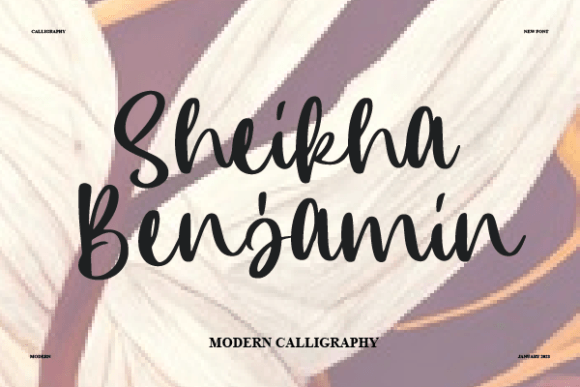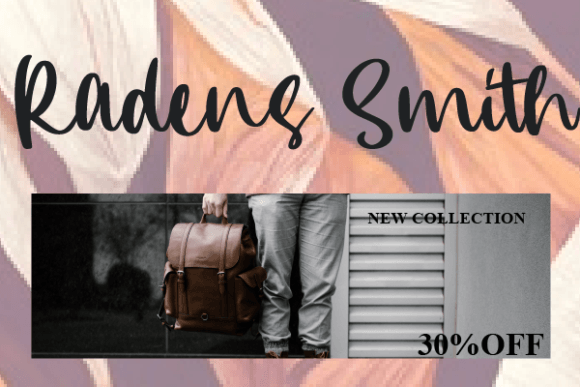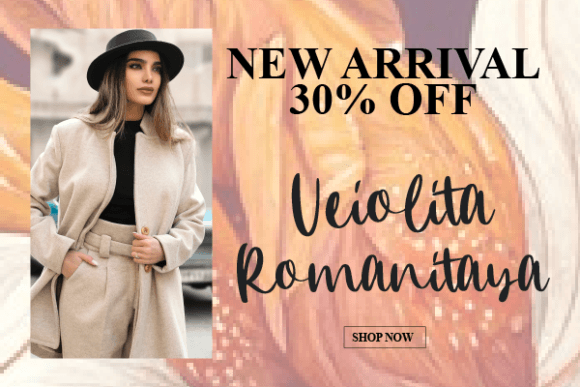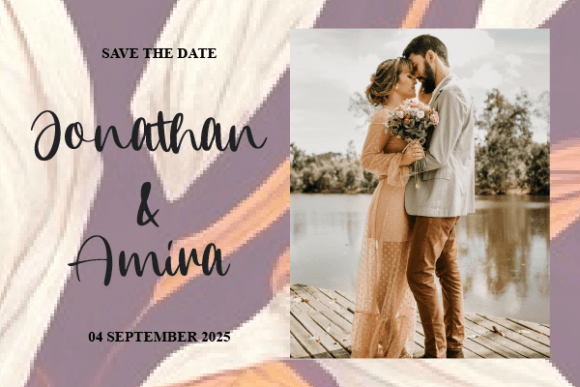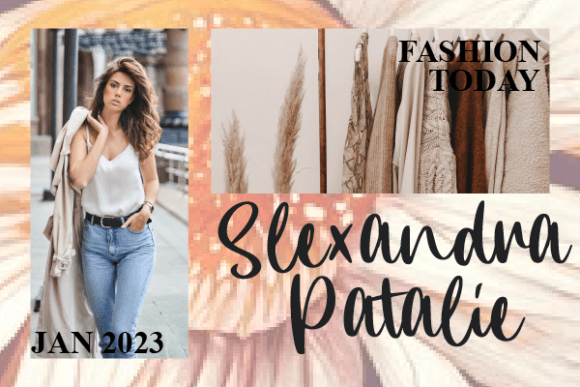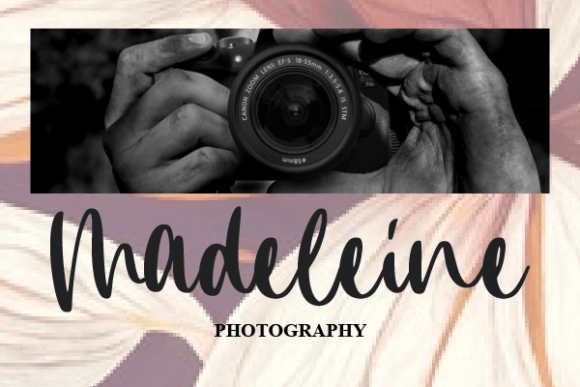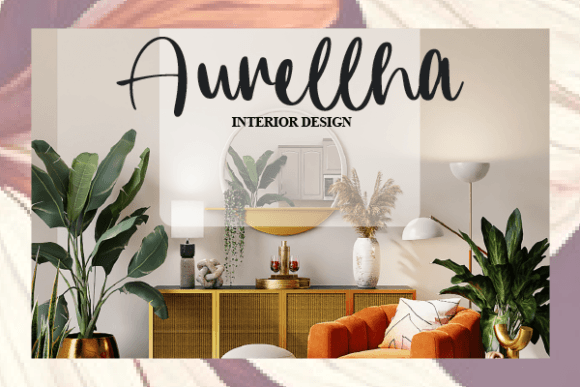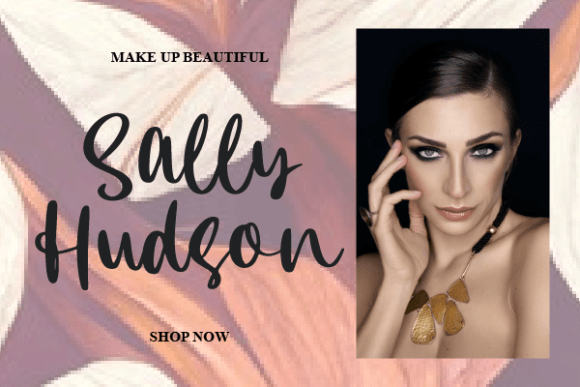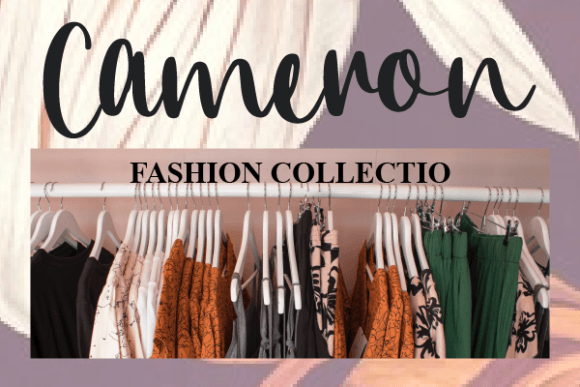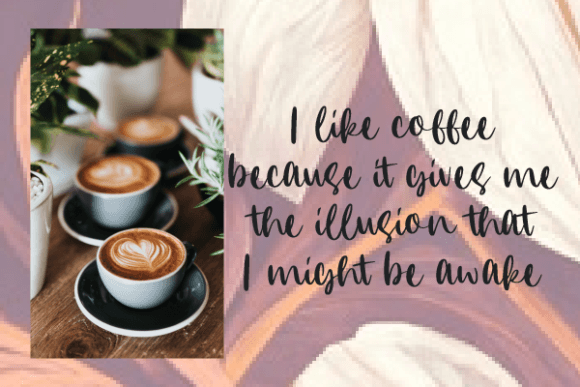
Sheikha Benjamin
About Sheikha Benjamin
Sheikha Benjamin is a lovely and timeless handwritten font. It is the best choice for creating eye-catching logos, branding, and quotes. Every letter has a unique and beautiful touch, which will make your design come alive!